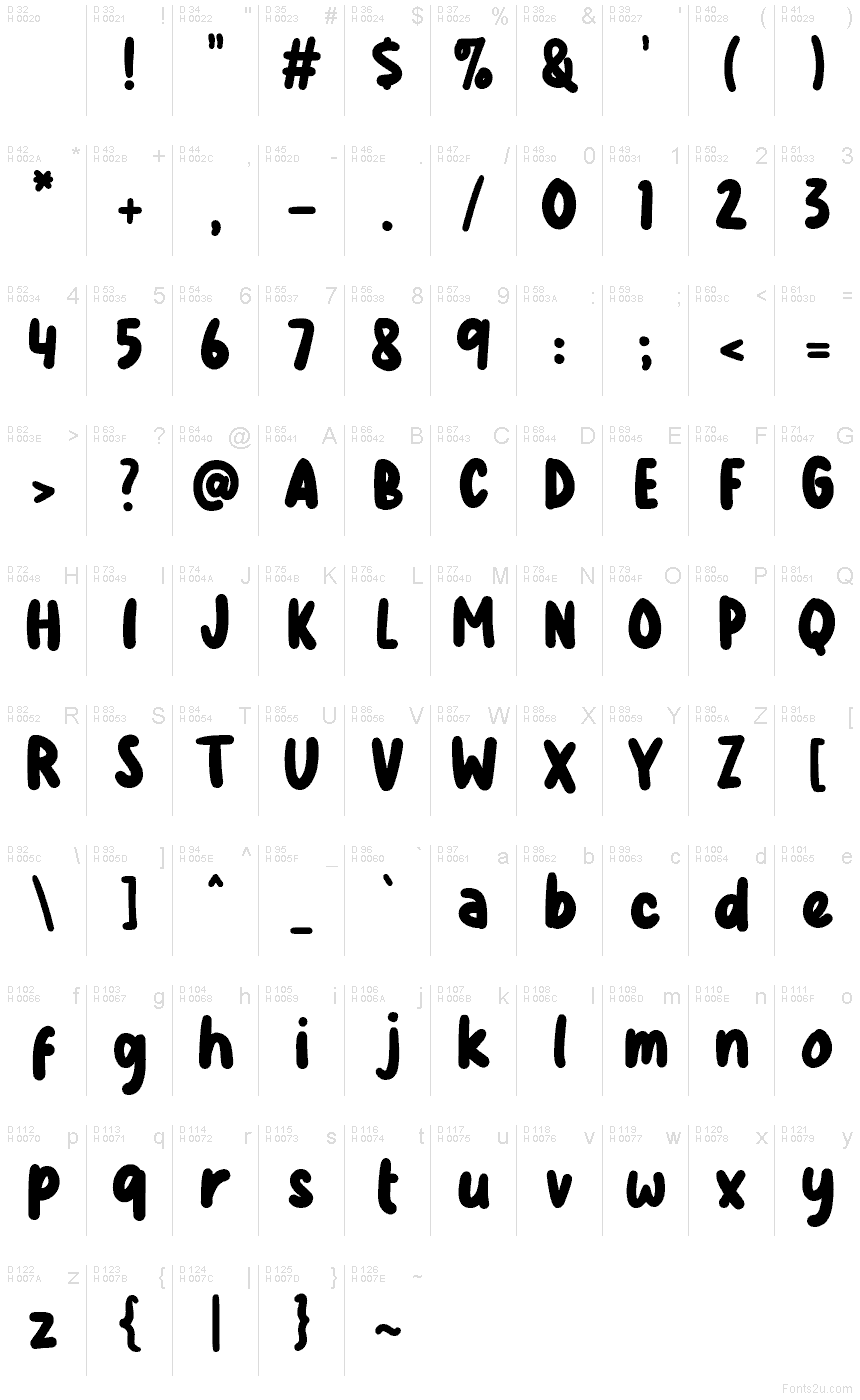
Snowy Days
Snowy Days font by Dm Letter Studio - Dimas Prasetyo is a free bold handwritten font. Built with marshmallow-soft curves, steady strokes, and a gentle bounce, it captures cozy, hot-cocoa energy without slipping into messiness. The rounded terminals and roomy counters keep it friendly and highly legible, even as headlines get big and bubbly.
Using Snowy Days, winter event posters, holiday cards, kids’ packaging, bakery logos, social stickers, classroom printables, and YouTube thumbnails all gain warm, cheerful lift. The even rhythm makes short phrases pop, while the chunky forms hold up on busy backgrounds. Pair this free font with a crisp sans for body copy and add a touch of extra letter‑spacing to let those pillowy shapes breathe.